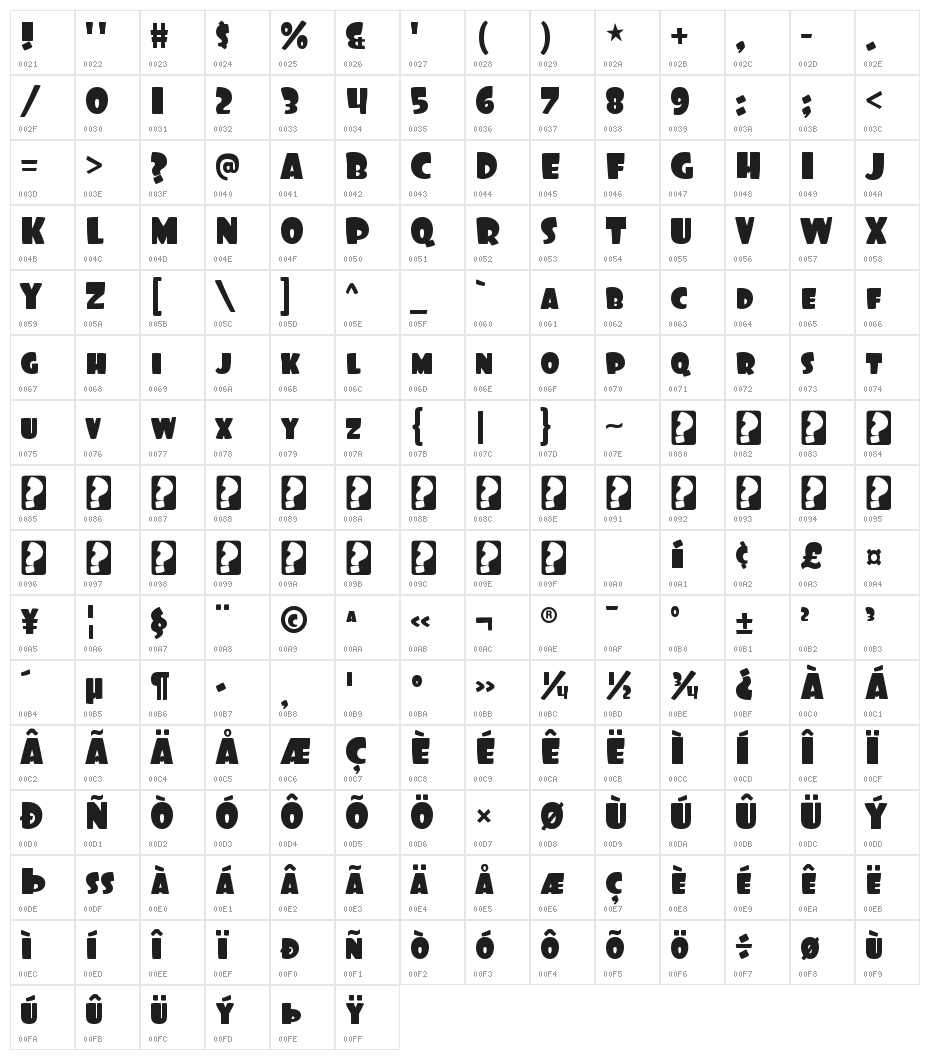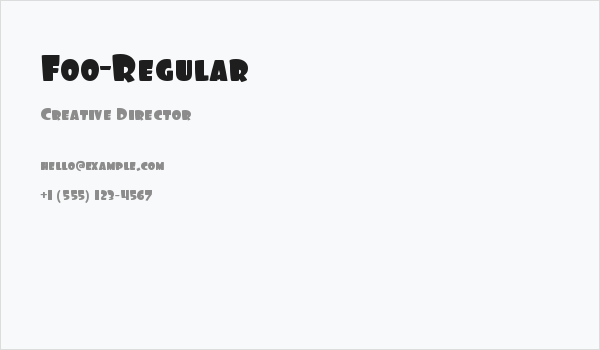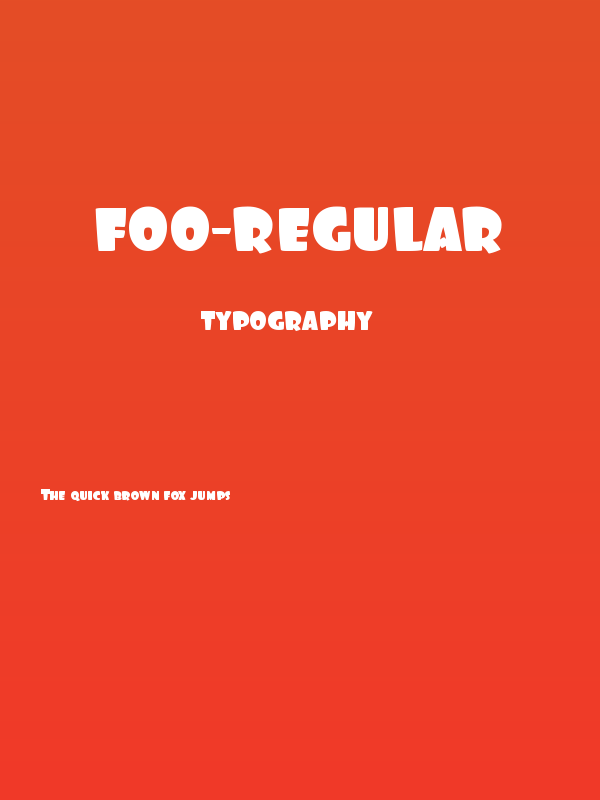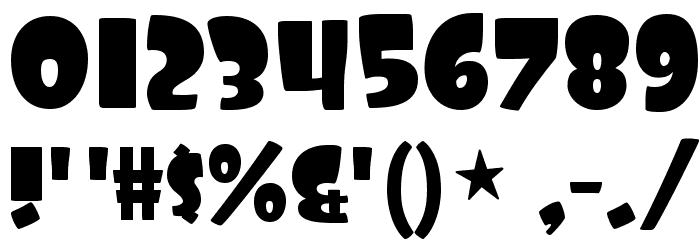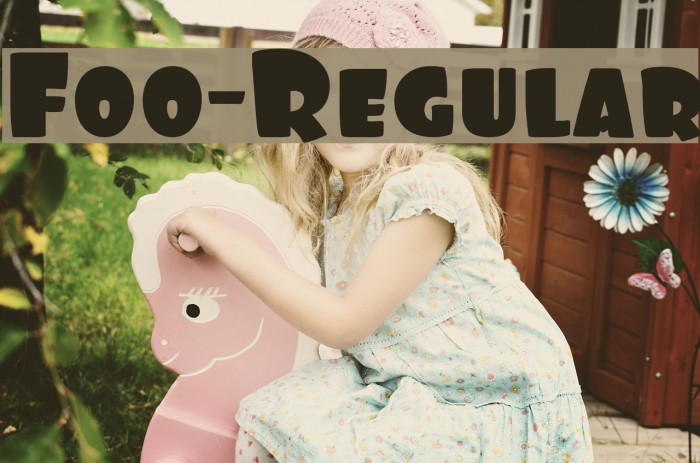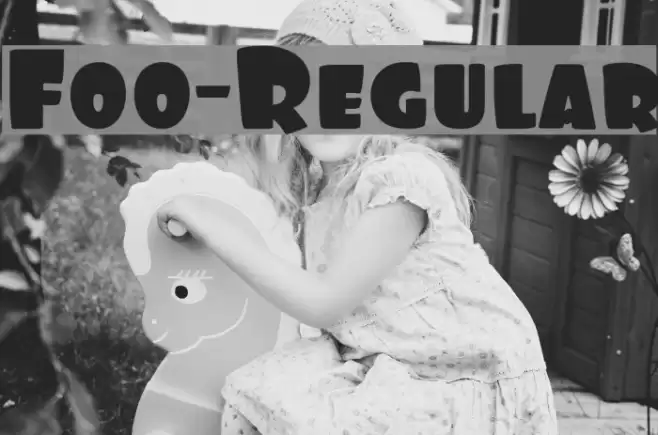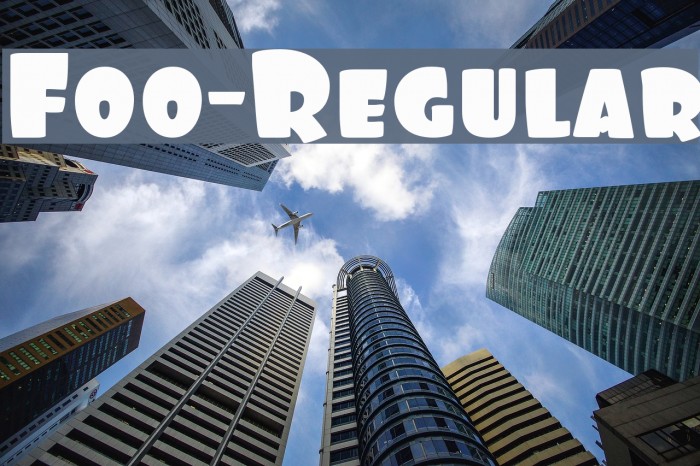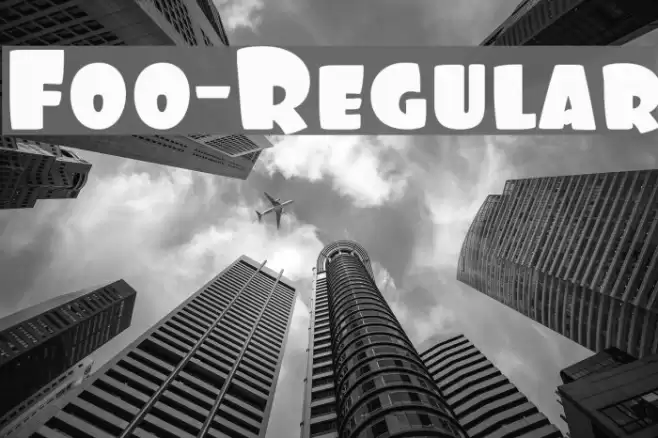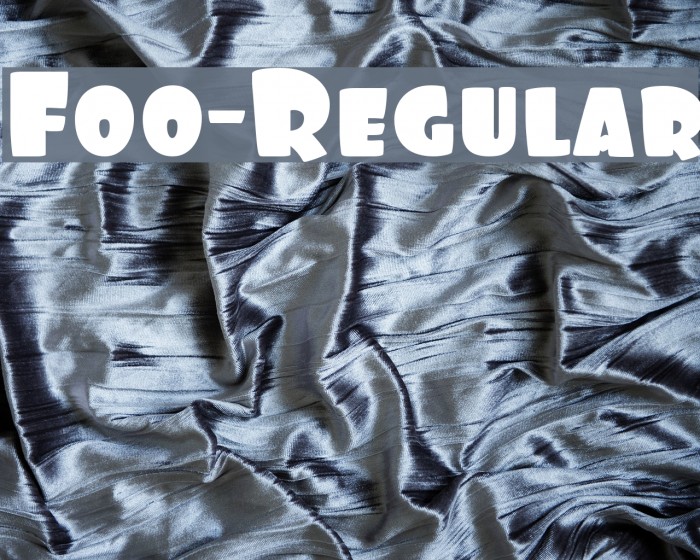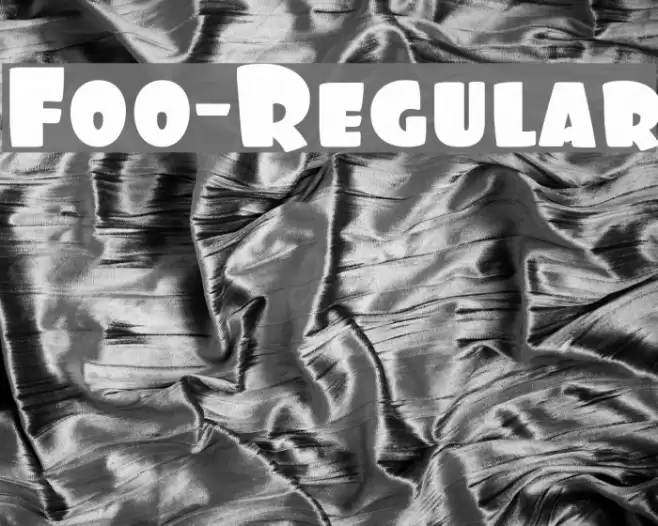
Foo-Regular Font
Foo-Regular Description
This font features bold, playful characters with a strong presence. The letters are rounded and slightly irregular, giving them a whimsical and friendly appearance. The uppercase and lowercase letters maintain a consistent style, with thick strokes and minimal contrast. The numbers and special characters follow the same design principles, ensuring a cohesive look across all elements. This font is ideal for projects that require a fun and engaging visual impact.
| Overall Style | Playful, Whimsical |
| Proposed Projects | Ideal for children's books, playful branding, party invitations, and casual posters. |